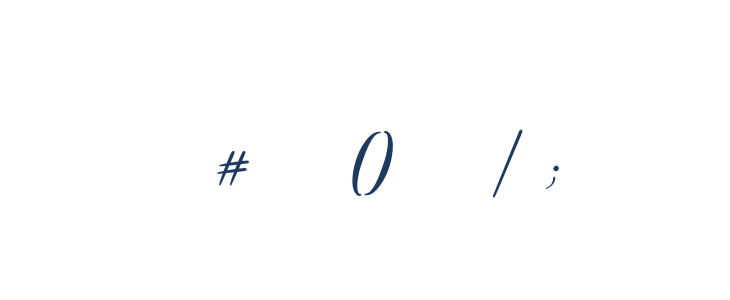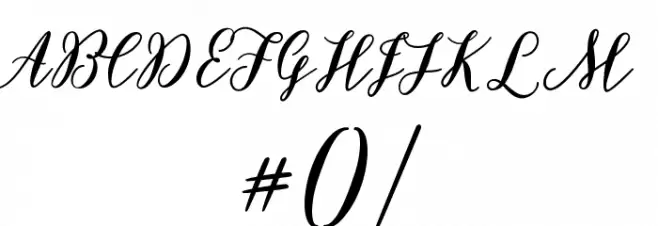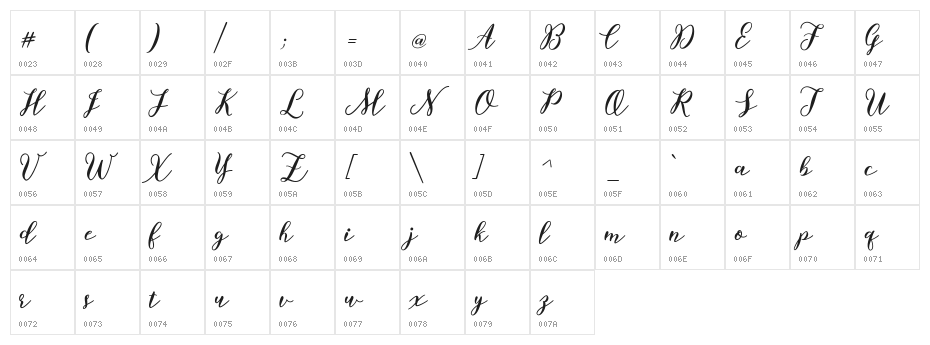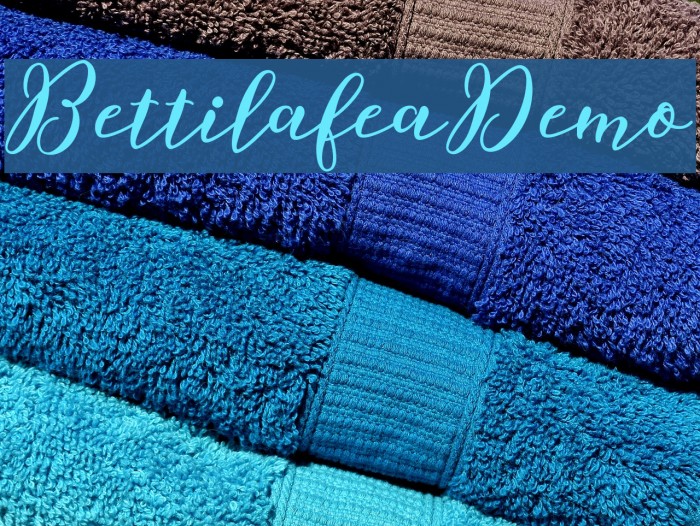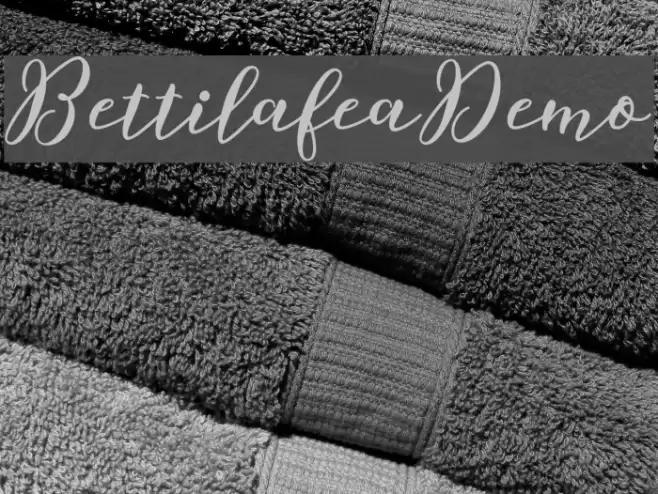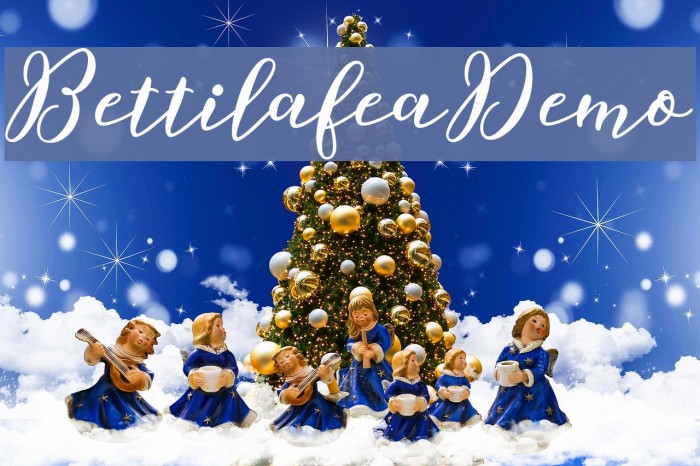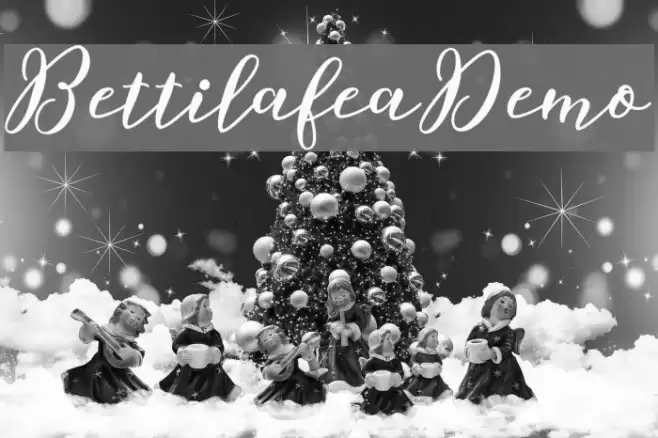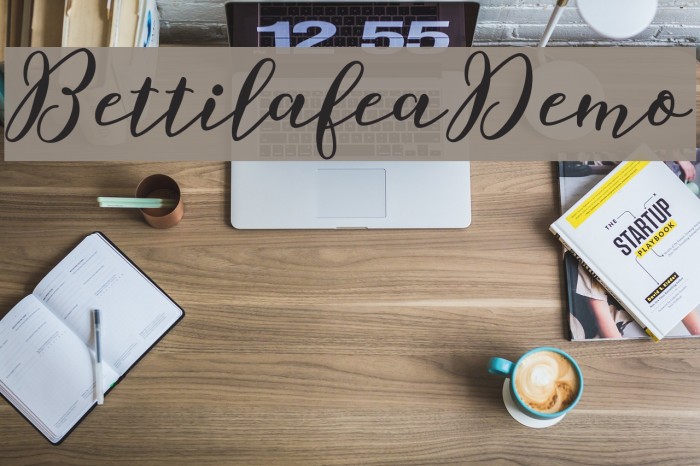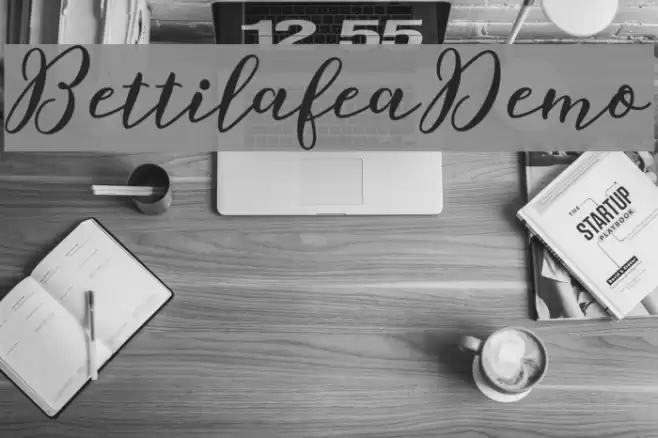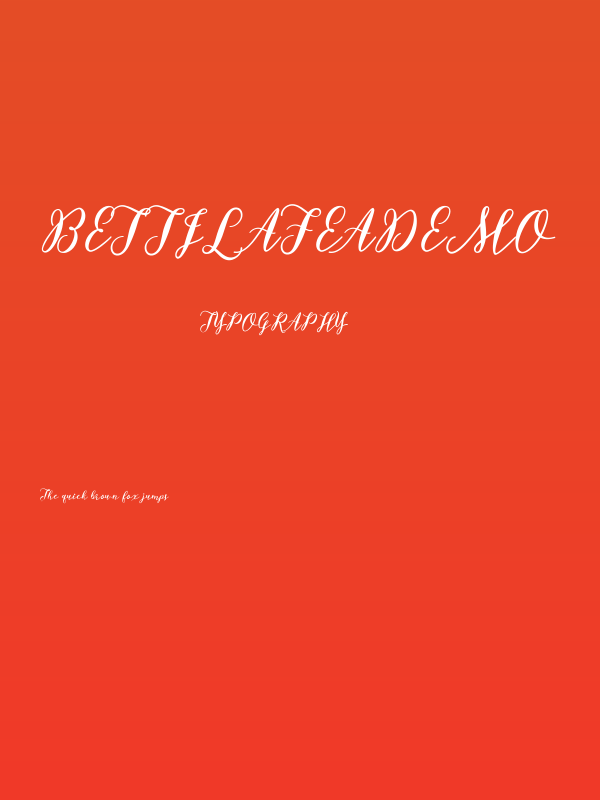
BettilafeaDemo Font
BettilafeaDemo Description
This elegant script font features flowing, cursive letters with a graceful and sophisticated appearance. The uppercase letters are characterized by their sweeping curves and loops, giving them a sense of movement and fluidity. The lowercase letters maintain a consistent style, with smooth connections between strokes, enhancing the font's readability. The numerals and special characters are designed to complement the overall aesthetic, with similar curves and flourishes. This font exudes a sense of elegance and refinement, making it suitable for formal and decorative applications.
| Use Case | Headlines, Invitations, Branding |
| Proposed Projects | Ideal for wedding invitations, elegant branding, greeting cards, and decorative headings. |